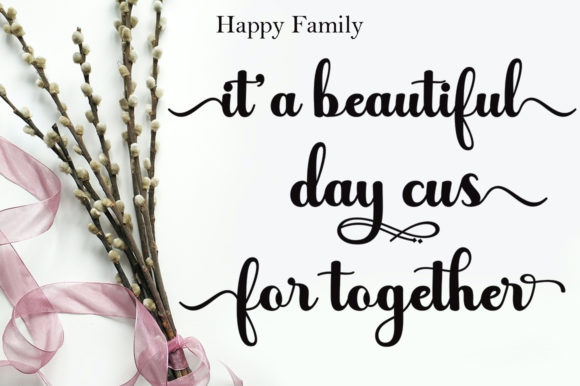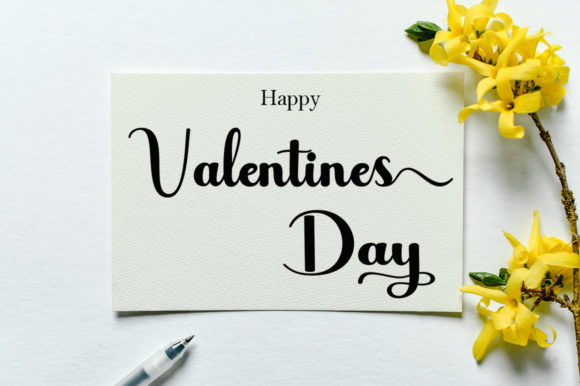
Feliciya Font
db-ku.com - Script & Handwritten -- Feliciya is a soft and sweet calligraphic typeface, with characters dancing along the baseline. It can be used for various purposes such as logos, wedding invitations, headings, t-shirts, letterheads, signage, labels, news, posters, badges and more.